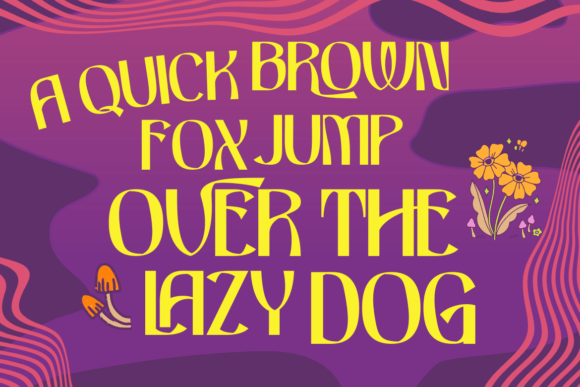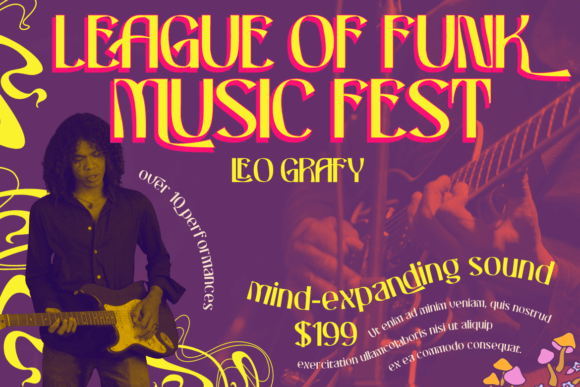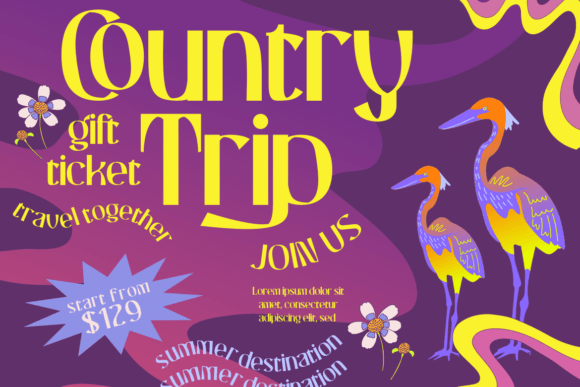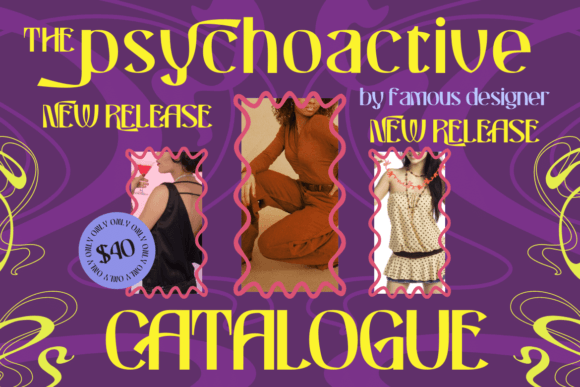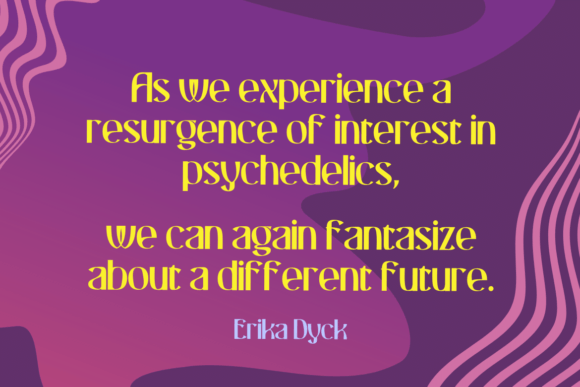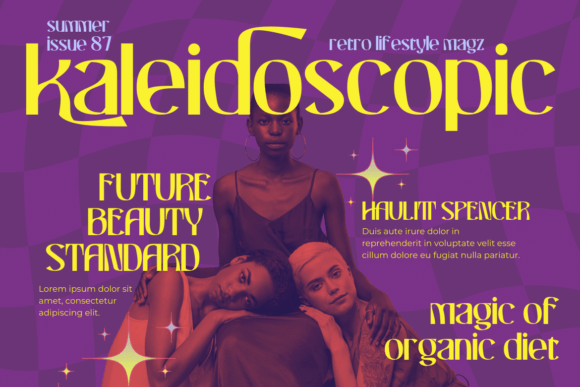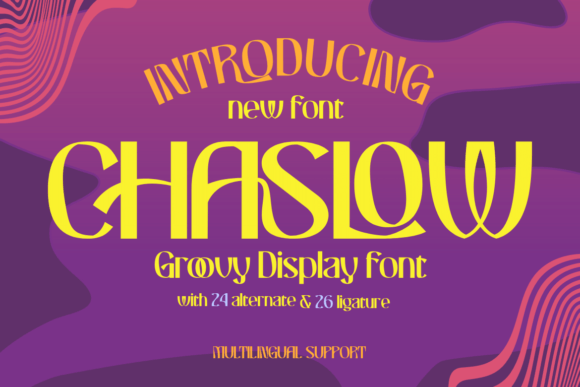
Introducing Chaslow Font: The Ultimate Display Font for Bold Designs
Are you tired of using the same old fonts in your designs? Look no further than Chaslow Font, a cool and unique display font that is sure to add a special touch to any project. With its strong and bold personality, Chaslow Font is perfect for designers and crafters who want to make a statement.
What Sets Chaslow Font Apart
So, what makes Chaslow Font so special? For starters, its unique contrast between thin and thick lines sets it apart from other fonts on the market. This distinctive feature gives Chaslow Font a bold and eye-catching personality that is sure to grab attention. Whether you’re designing a logo, poster, or flyer, Chaslow Font is the perfect choice for adding a touch of drama and flair.
One of the best things about Chaslow Font is its versatility. This font can be used to create a wide range of designs, from logos and posters to flyers and more. Its bold and eye-catching personality makes it perfect for any project that needs to stand out from the crowd. Whether you’re a professional designer or a crafty DIY enthusiast, Chaslow Font is a great addition to your font library.
PUA Encoding: Easy Access to Glyphs and Ligatures
Chaslow Font is PUA (Private Use Area) encoded, which means that you can access all the glyphs and ligatures with ease. This makes it easy to get the most out of this font and add an extra layer of creativity to your designs. With PUA encoding, you can easily access alternative characters, ligatures, and other special features that will take your designs to the next level.
Chaslow Font is a must-have for designers and crafters who want to add a touch of personality to their work. Whether you’re creating professional designs for clients or working on personal projects, this font is sure to inspire. Its unique and bold personality makes it perfect for a wide range of projects, from branding and advertising to crafting and DIY projects.
Tips for Using Chaslow Font
Here are a few tips for getting the most out of Chaslow Font:
- Use it sparingly: Chaslow Font is a bold and eye-catching font, so it’s best to use it sparingly to avoid overwhelming your design.
- Pair it with a neutral font: Pair Chaslow Font with a neutral font to create a striking contrast that will make your design stand out.
- Experiment with different sizes: Chaslow Font looks great in a variety of sizes, so don’t be afraid to experiment and find the perfect size for your design.
Key Features of Chaslow Font
- Unique and bold personality
- Contrast between thin and thick lines
- Perfect for logos, posters, flyers, and more
- Endless design possibilities